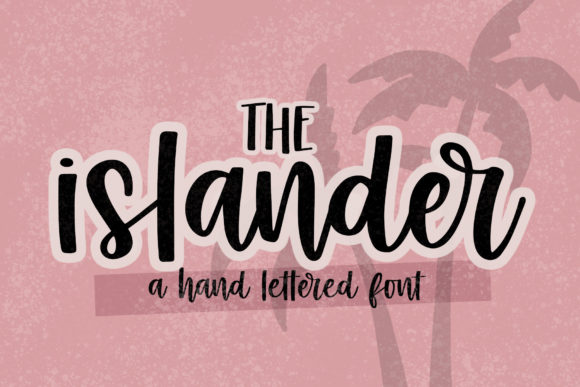
Experience the cool and fashionable vibes of The Islander Font, a stunning addition to any font collection. This script font, created by dansiedesign, is the epitome of style and elegance, guaranteed to captivate users seeking the best font for reading script.
With its smooth curves and impeccable design, The Islander Font brings a touch of sophistication to any project. Whether you're working on fashion branding, editorial designs, or simply want to make a statement, this font is your go-to choice. Its versatility knows no bounds, allowing you to unleash your creativity and achieve stunning results.
What sets The Islander Font apart is its ability to evoke powerful emotions. As you immerse yourself in its elegant strokes, you'll be transported to a world of high fashion and timeless beauty. Every letter is meticulously crafted, creating a seamless flow that adds a touch of luxury to your designs.
Imagine the impact this font will have on your fashion branding projects. With The Islander Font, your logos, advertisements, and promotional materials will exude confidence and allure. It effortlessly captures the essence of modern elegance, instantly captivating the attention of your target audience.
Not only does The Islander Font excel in fashion branding, but it also shines in editorial designs. Whether you're creating magazine layouts, blog headers, or social media graphics, this font will elevate your content to new heights. Its unique and eye-catching style will make your words come alive, leaving a lasting impression on readers.
Embrace the elegance of The Islander Font and unlock a world of possibilities. Its seamless integration into your projects will elevate your designs, leaving a lasting impact on anyone who lays eyes on them. Don't settle for ordinary fonts when you can have the best font for reading script.
In conclusion, The Islander Font is a must-have for anyone seeking to make a statement with their designs. Its cool and fashionable nature, combined with its versatility and captivating appeal, make it the perfect choice for fashion branding and editorial designs. Let this font be your secret weapon in creating stunning and memorable experiences for your audience.